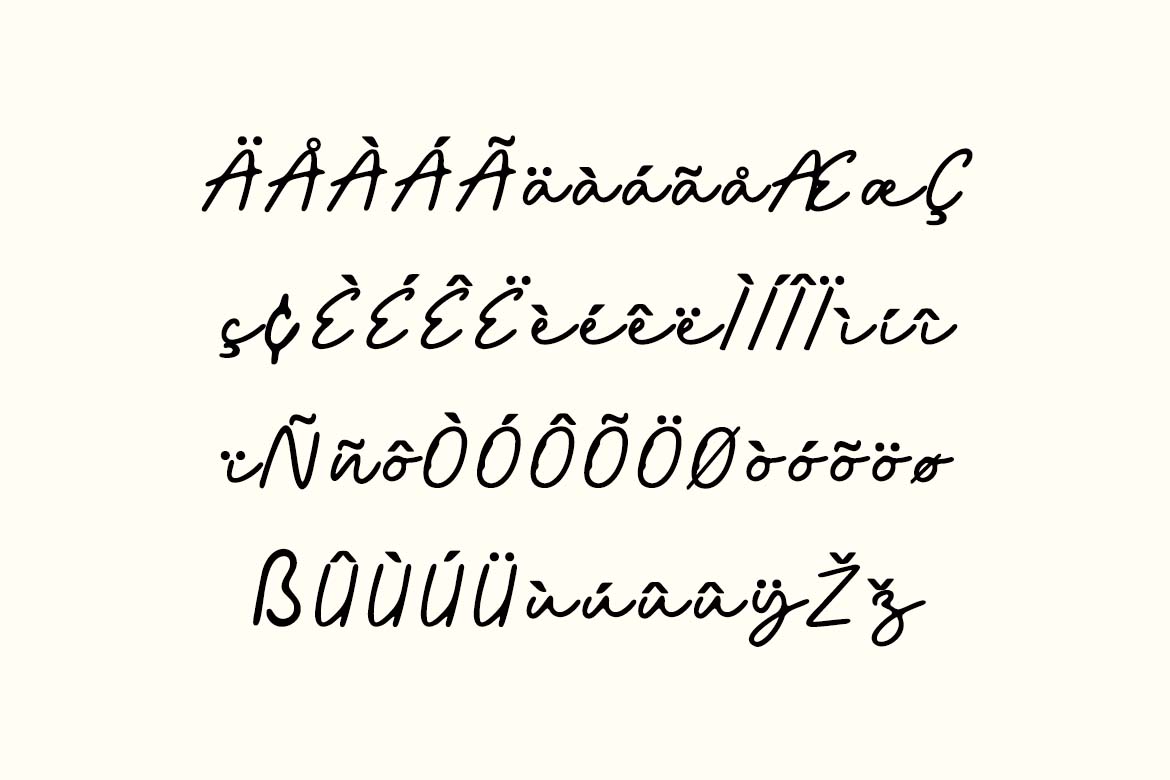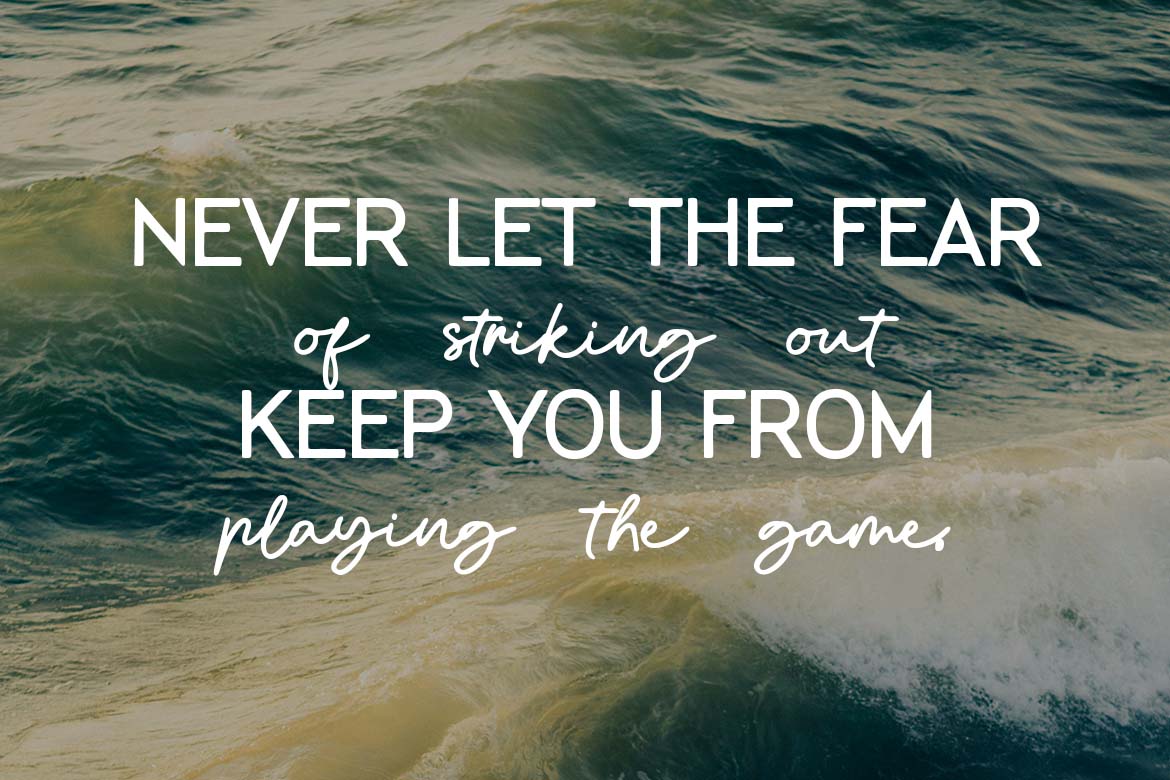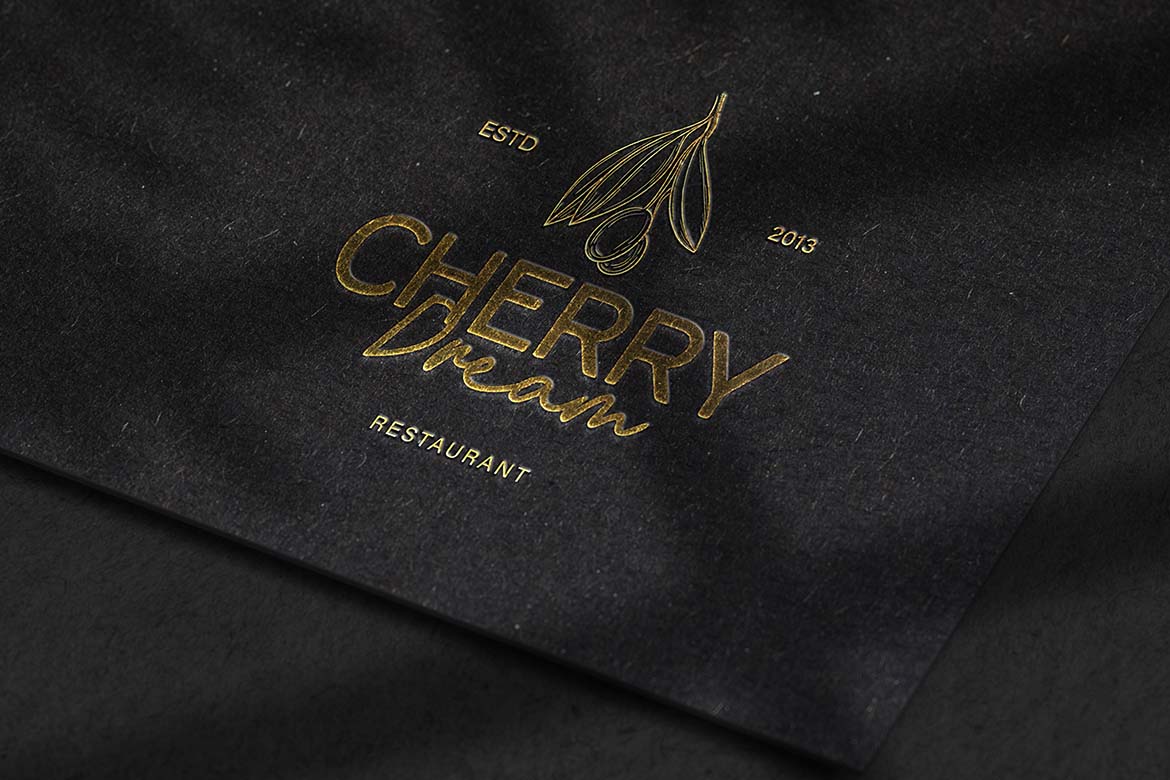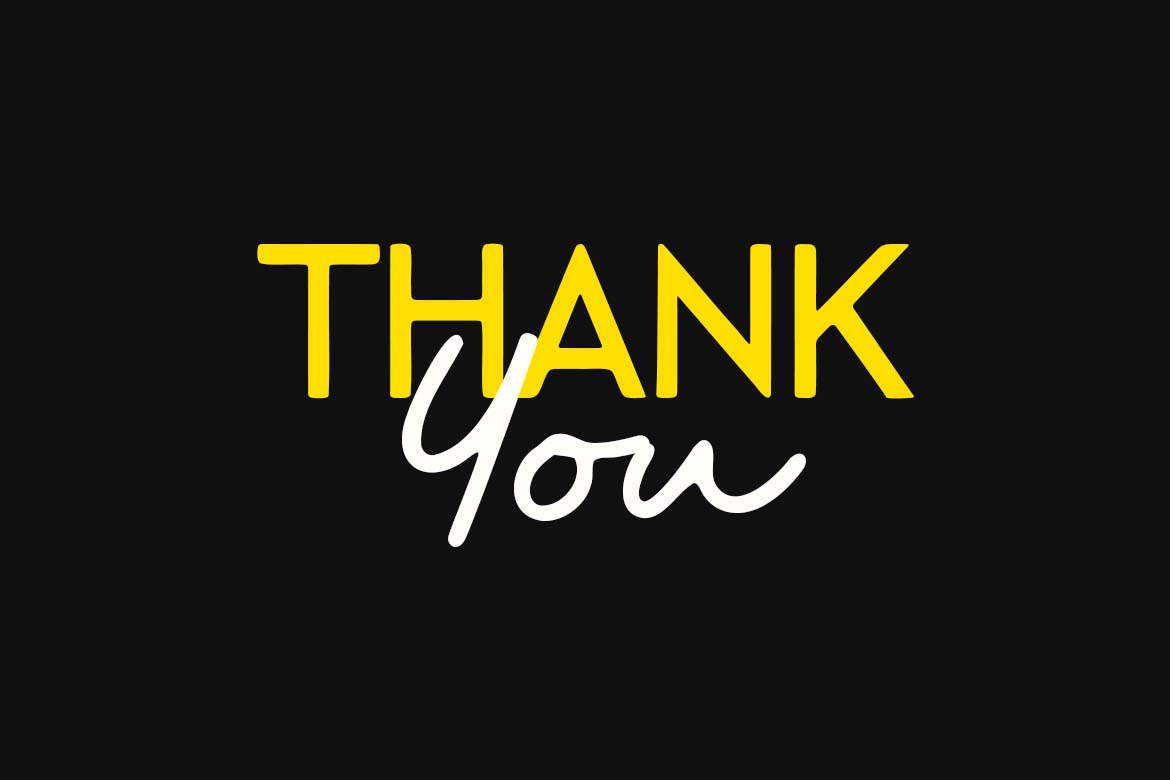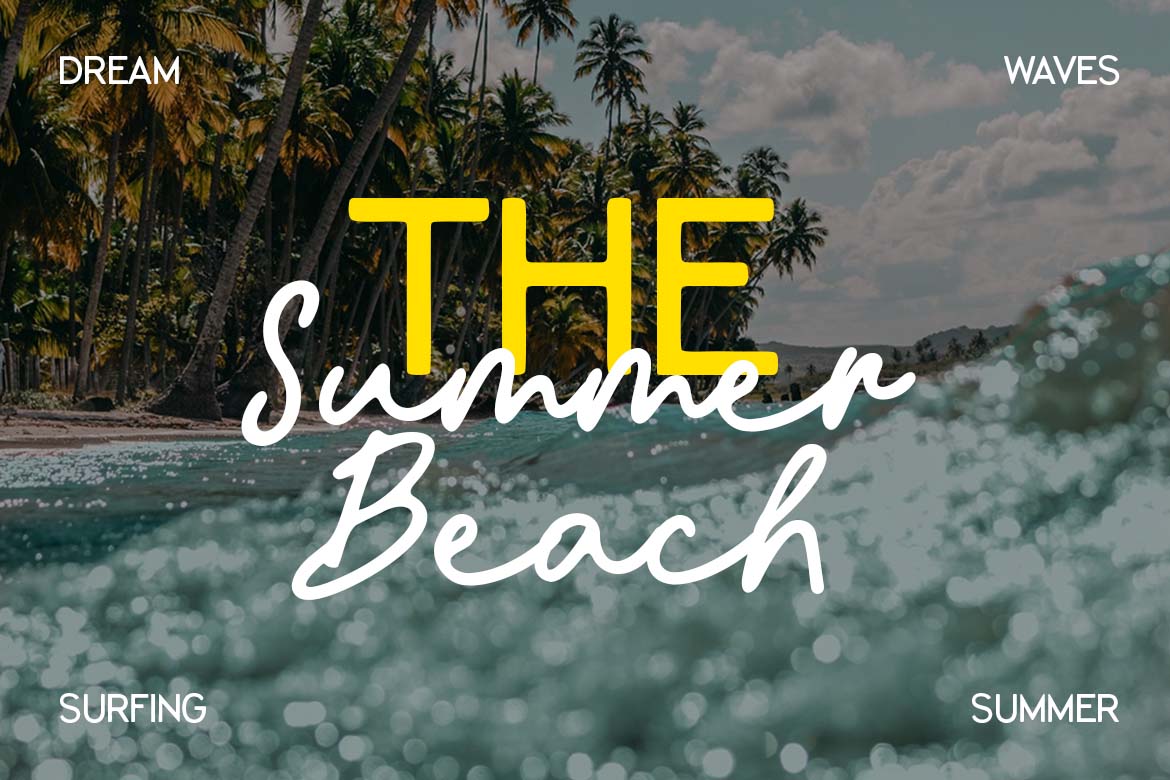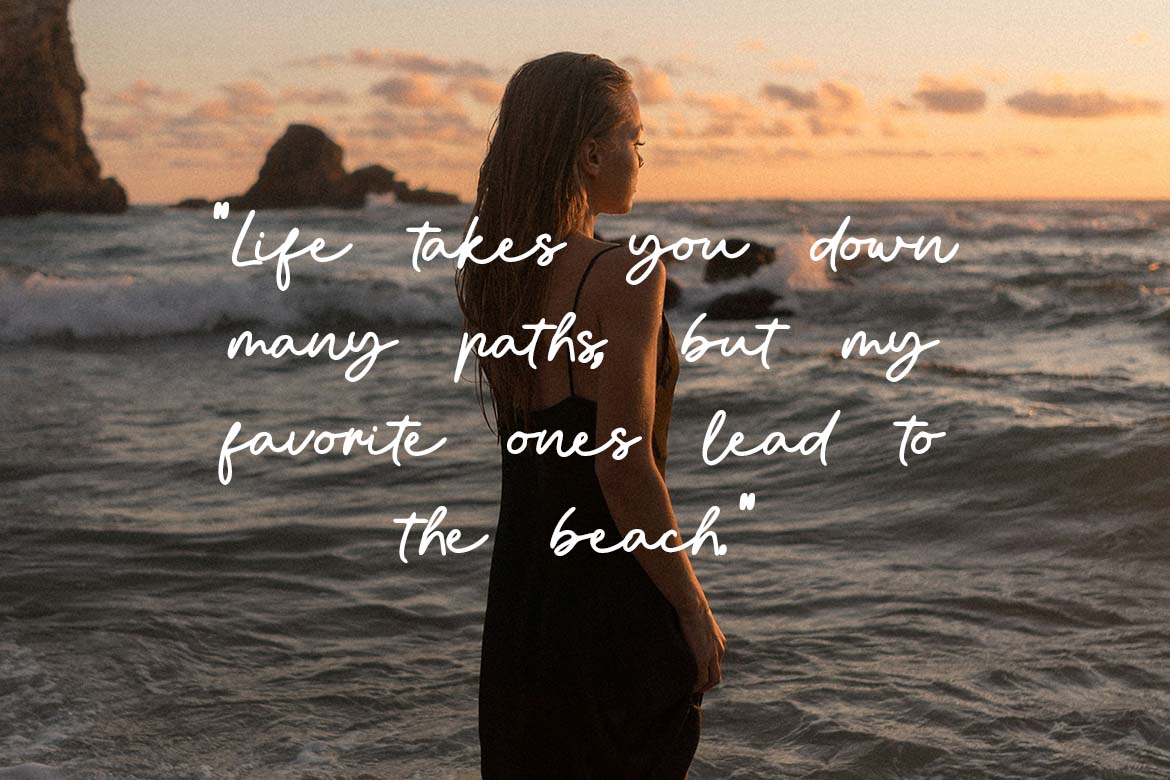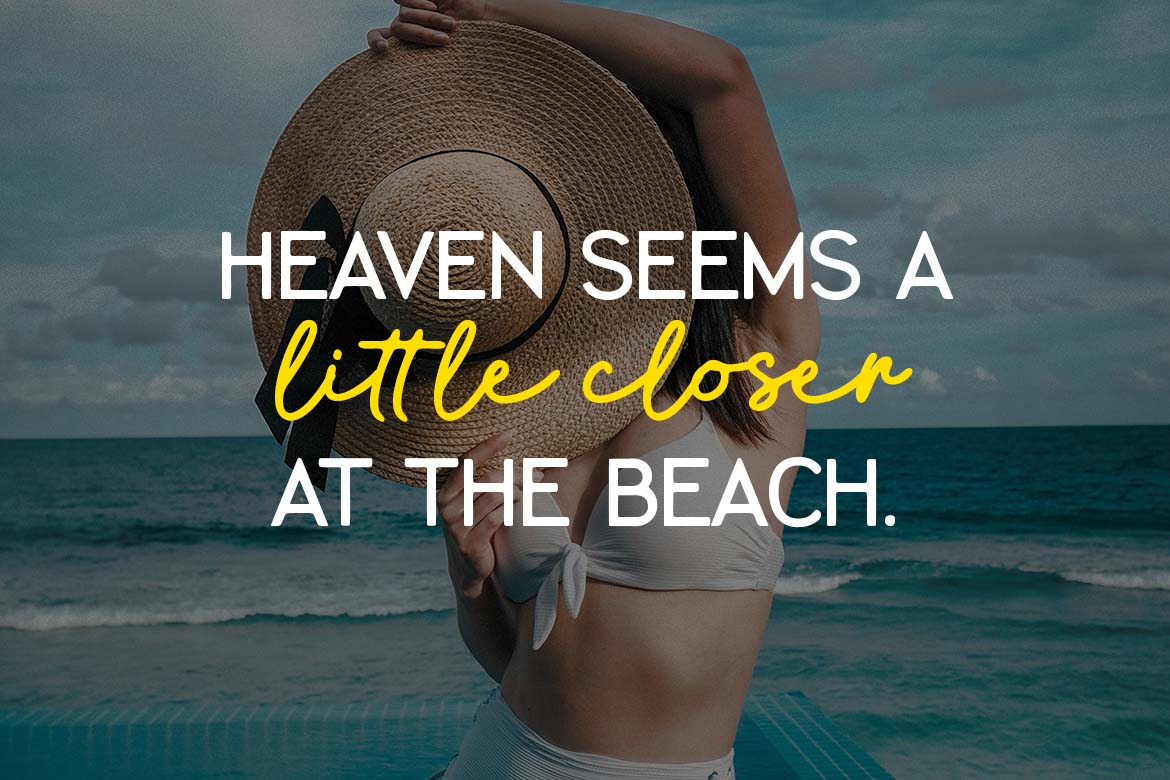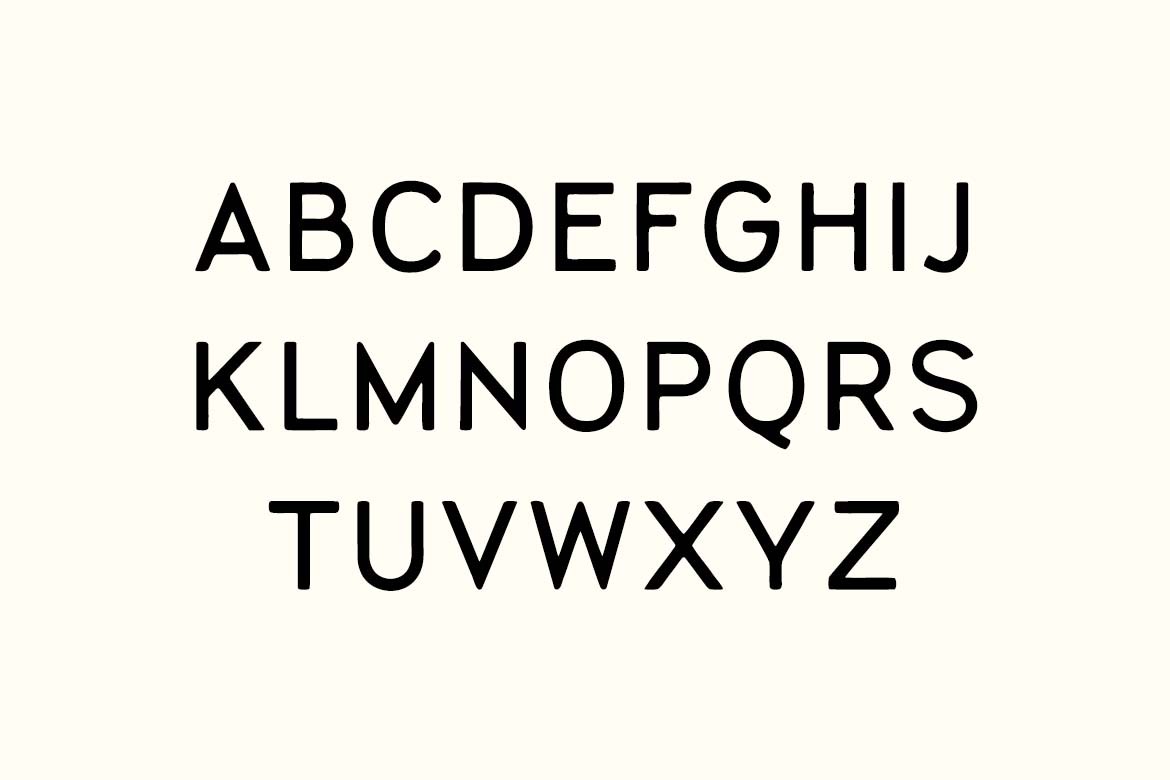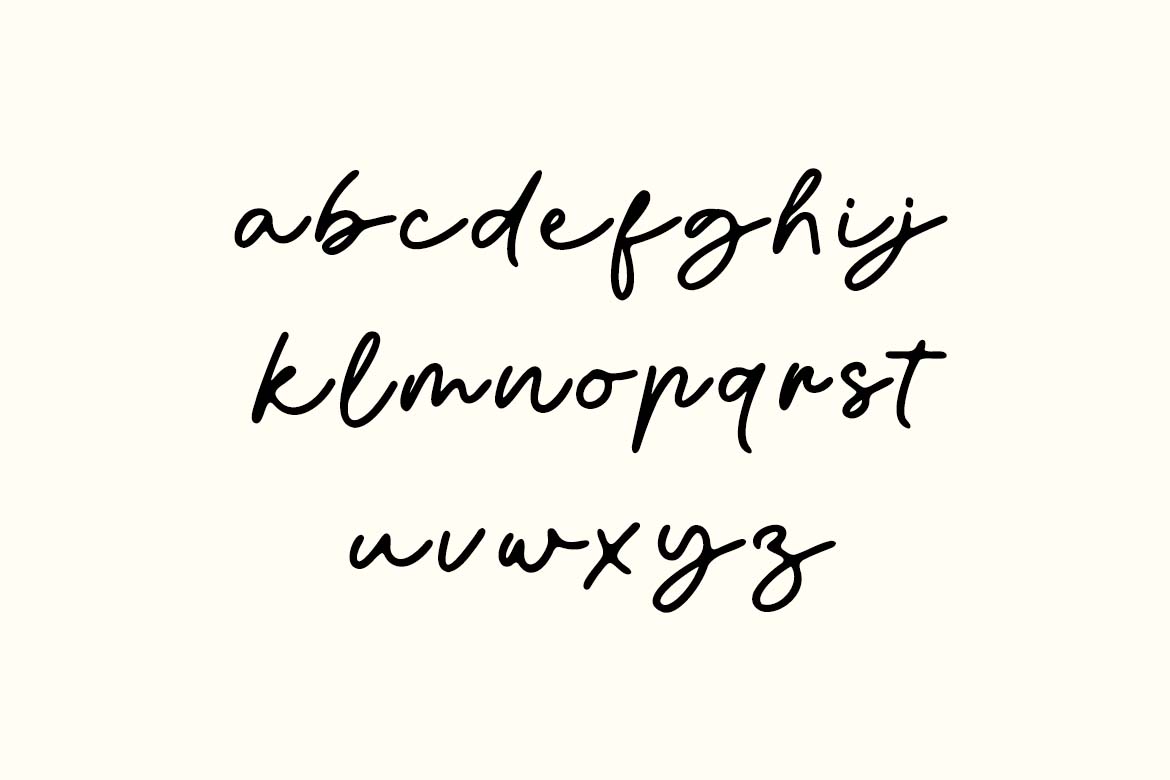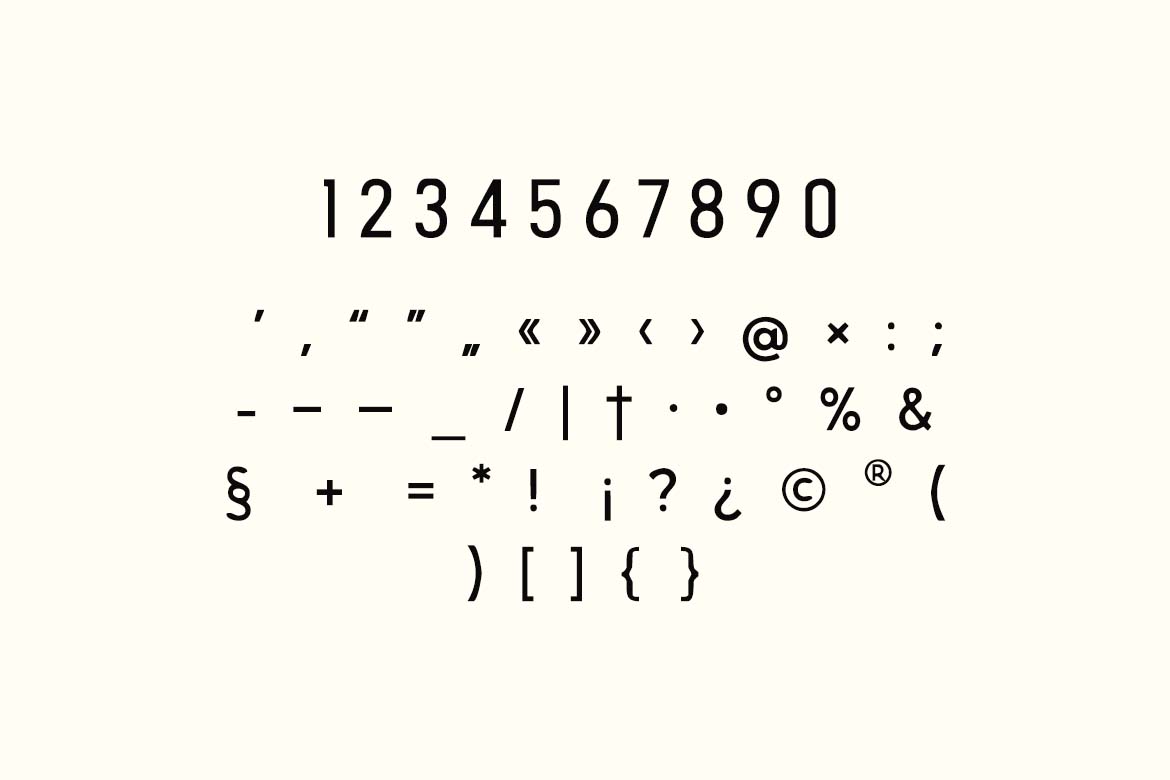
Manhattan Night Blues Club Retro Handwritten Font
Manhattan Night Blues Club Handwritten Font. The modern display font feels beautiful classy, elegant, and stylish. This font is ideally suited for a wide variety of projects, such as signature, stationery, logo, wedding, typography quotes, magazine or book covers, website headers, branding, and more. Also, fashion-related branding or editorial design displays both masculine and feminine qualities.